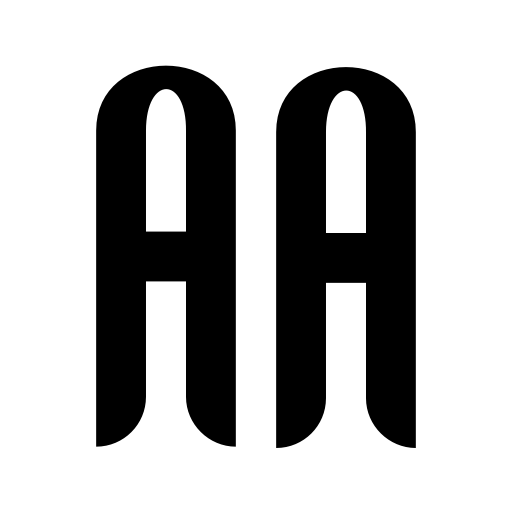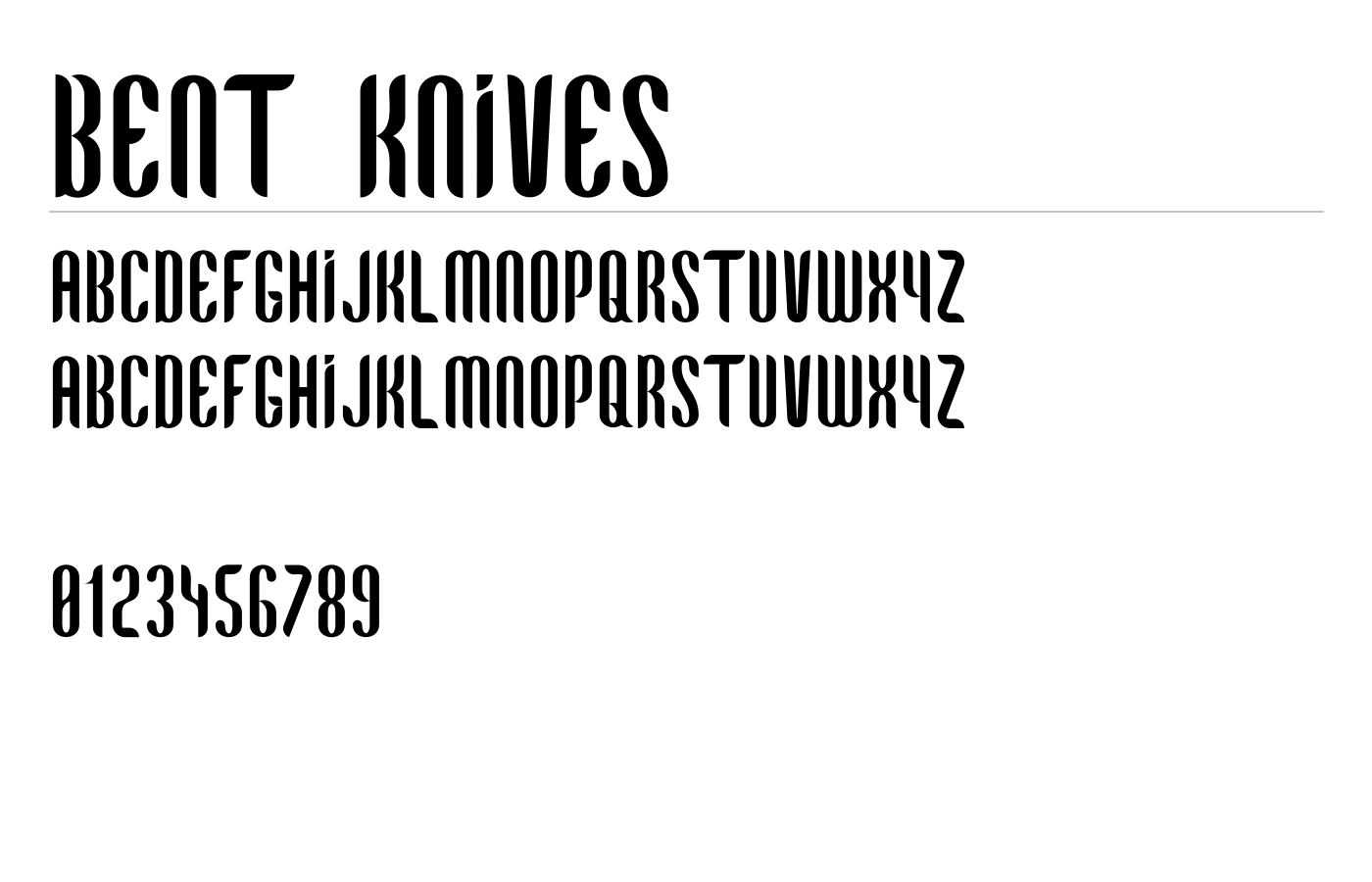
Bent-Knives is a bold, condensed display font that features tall, narrow letterforms with sharp, angular cuts reminiscent of blades, giving it a striking, edgy personality. Its high contrast and unique character shapes make it ideal for impactful headlines, logos, and designs in fashion or modern urban branding where a strong, distinctive look is desired. This font works best in large sizes where its dramatic style can catch the eye and add a sense of bold sophistication.
Bent-Knives Font